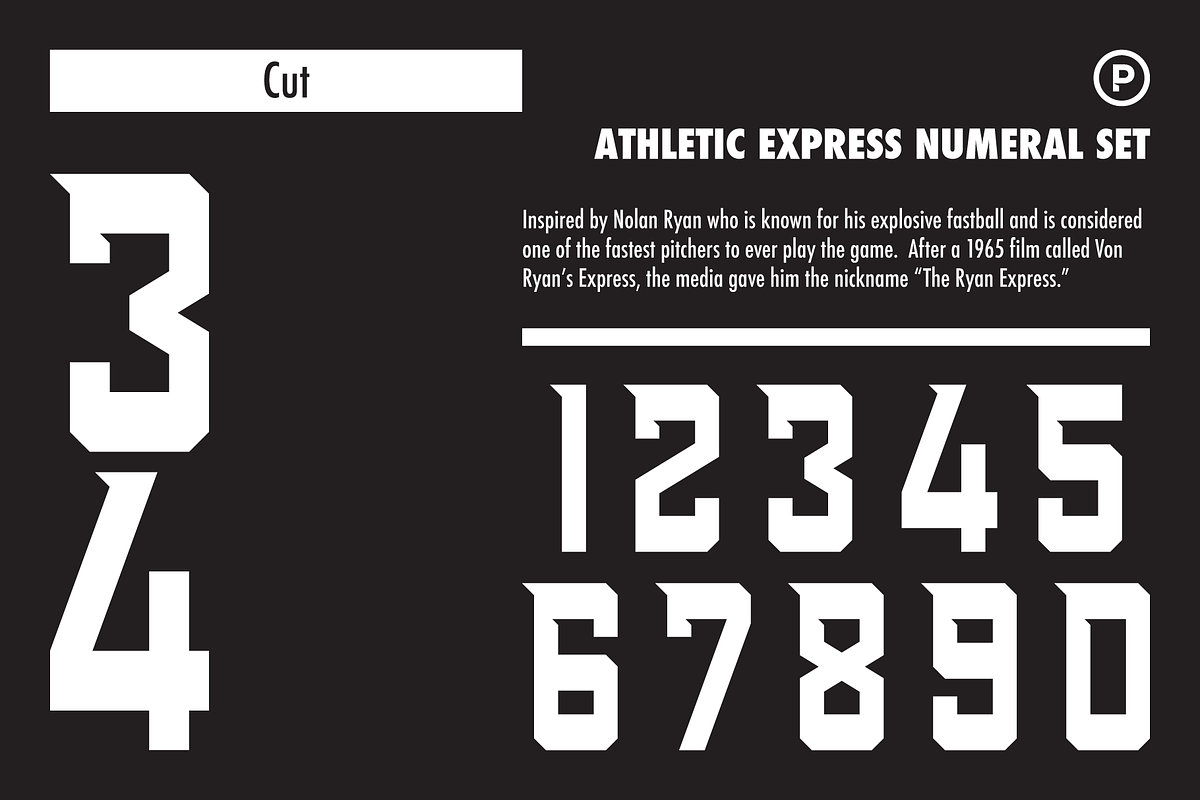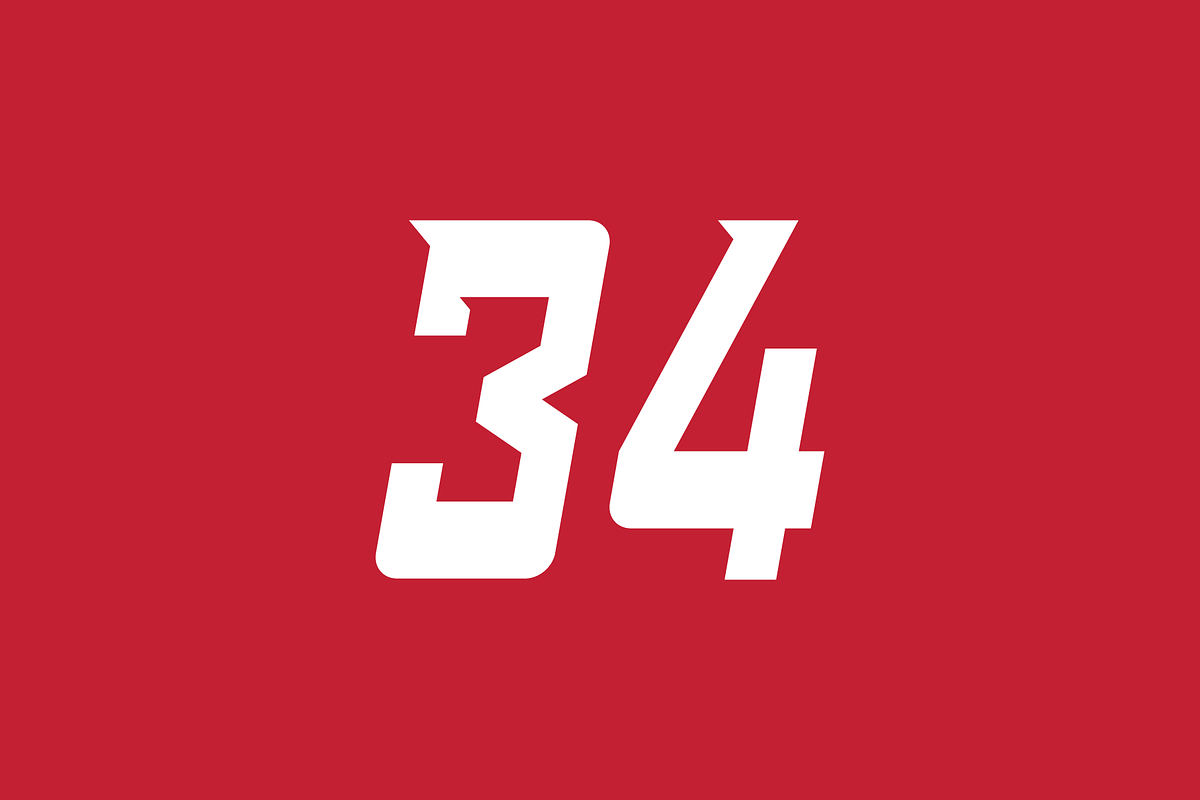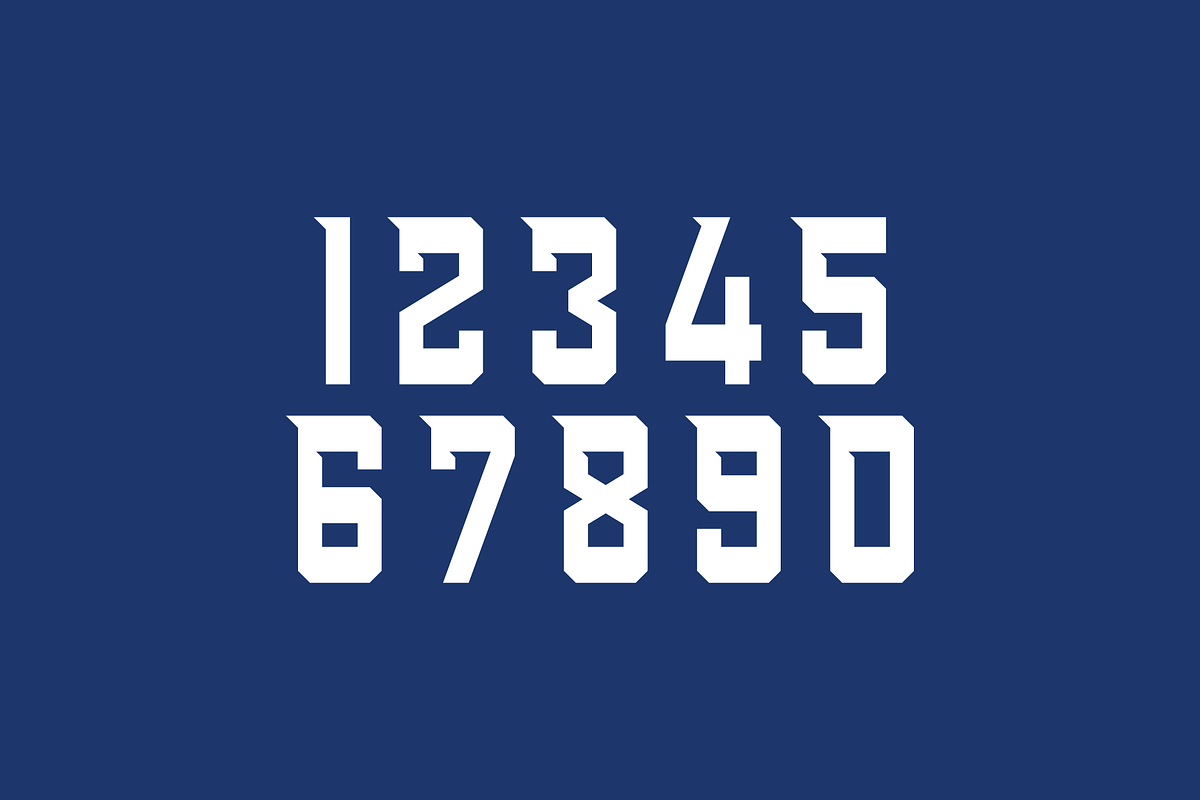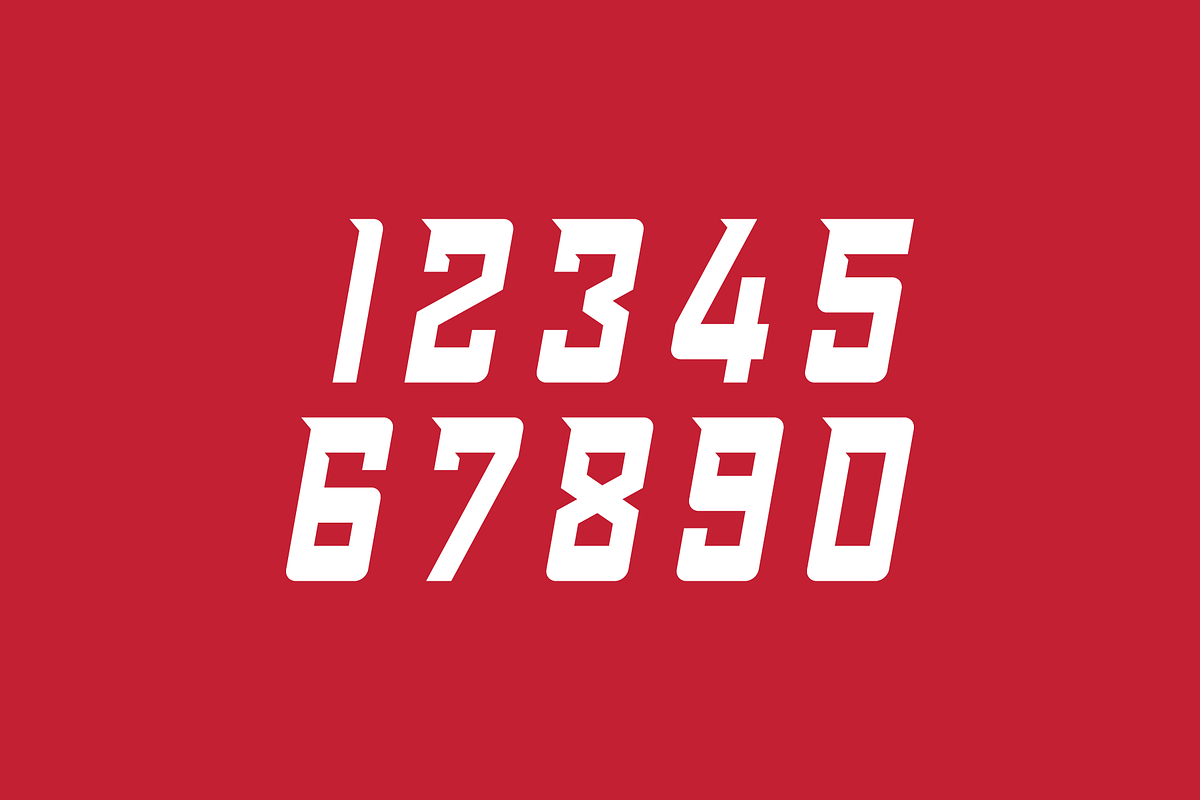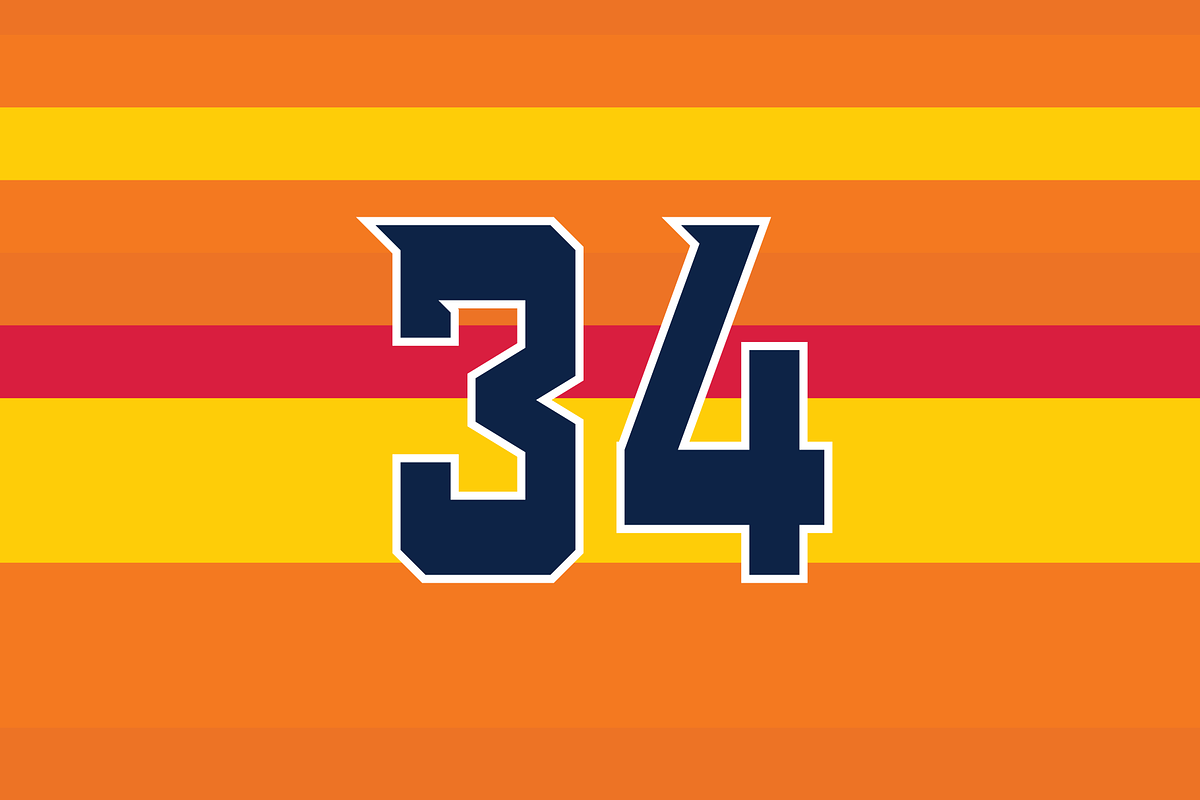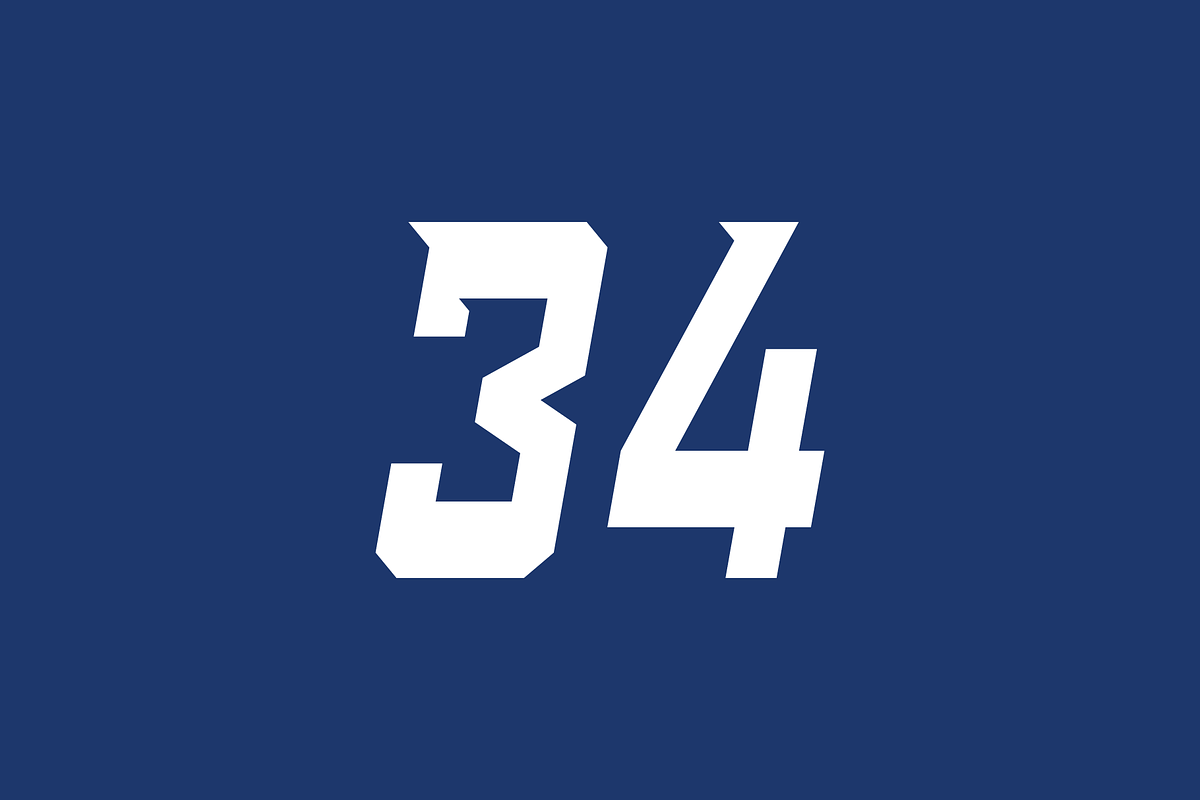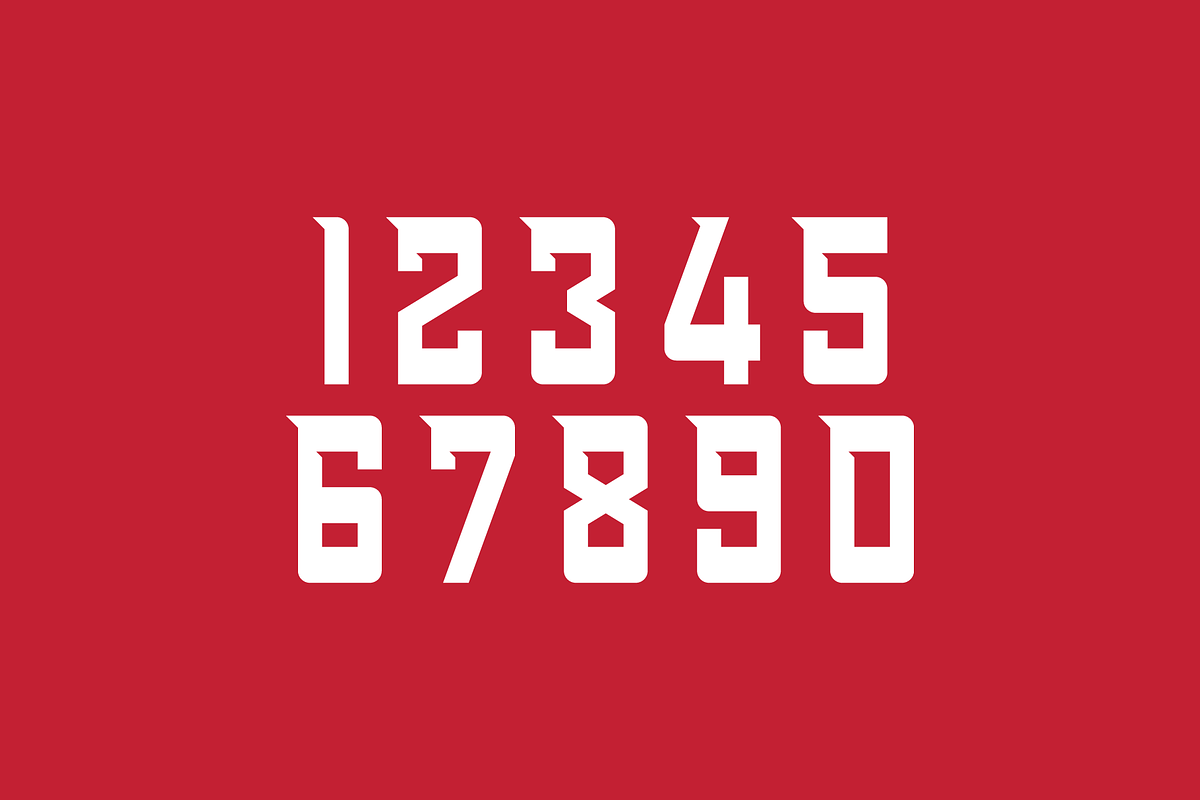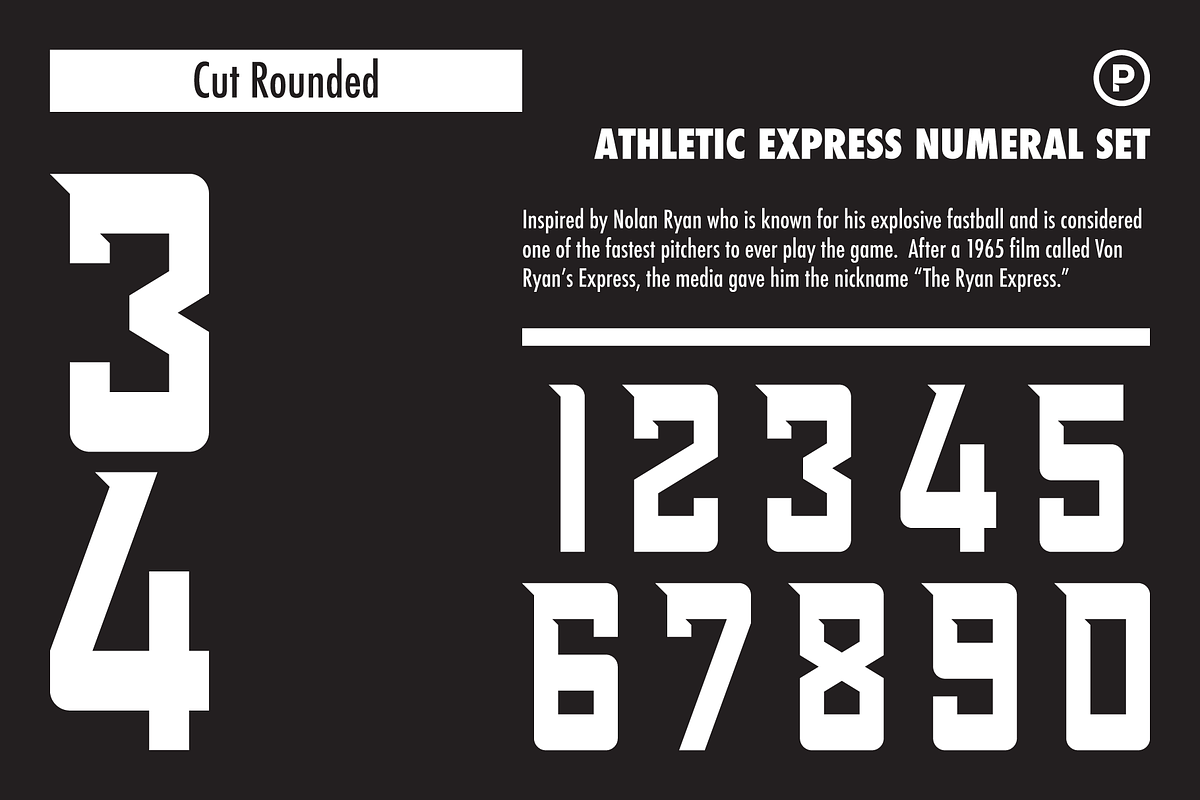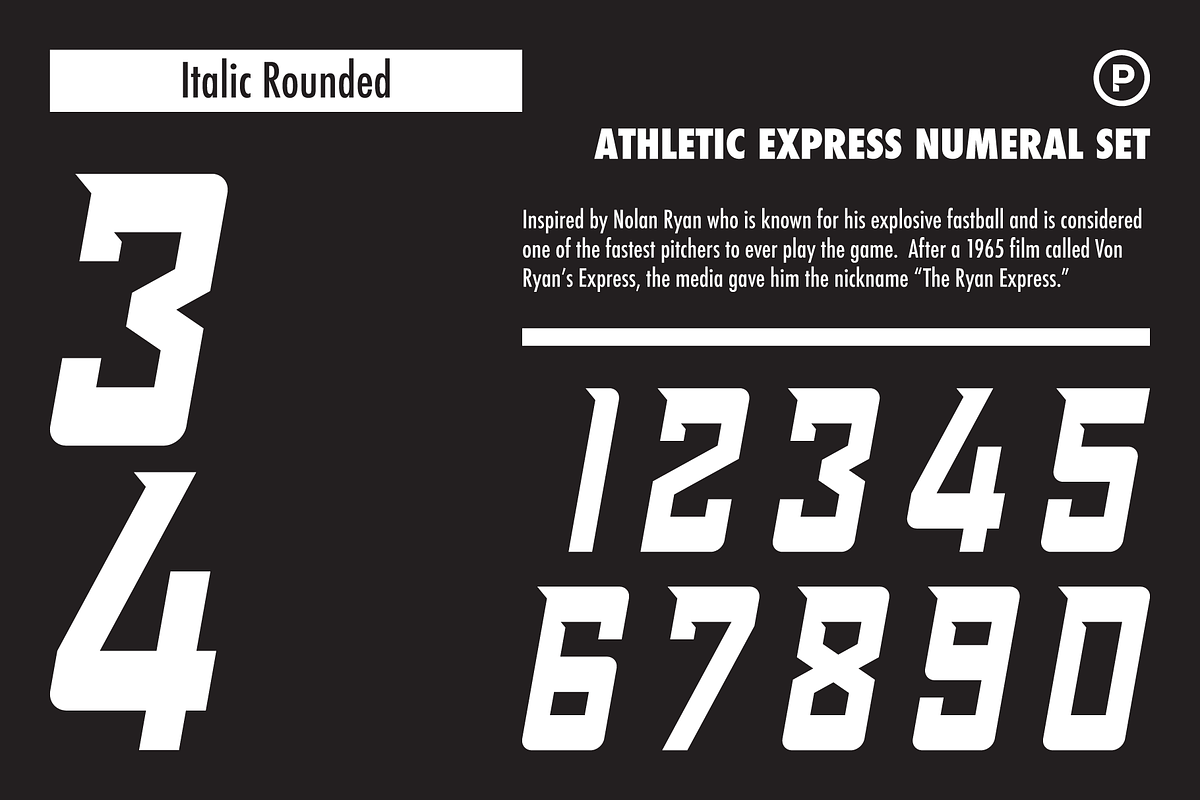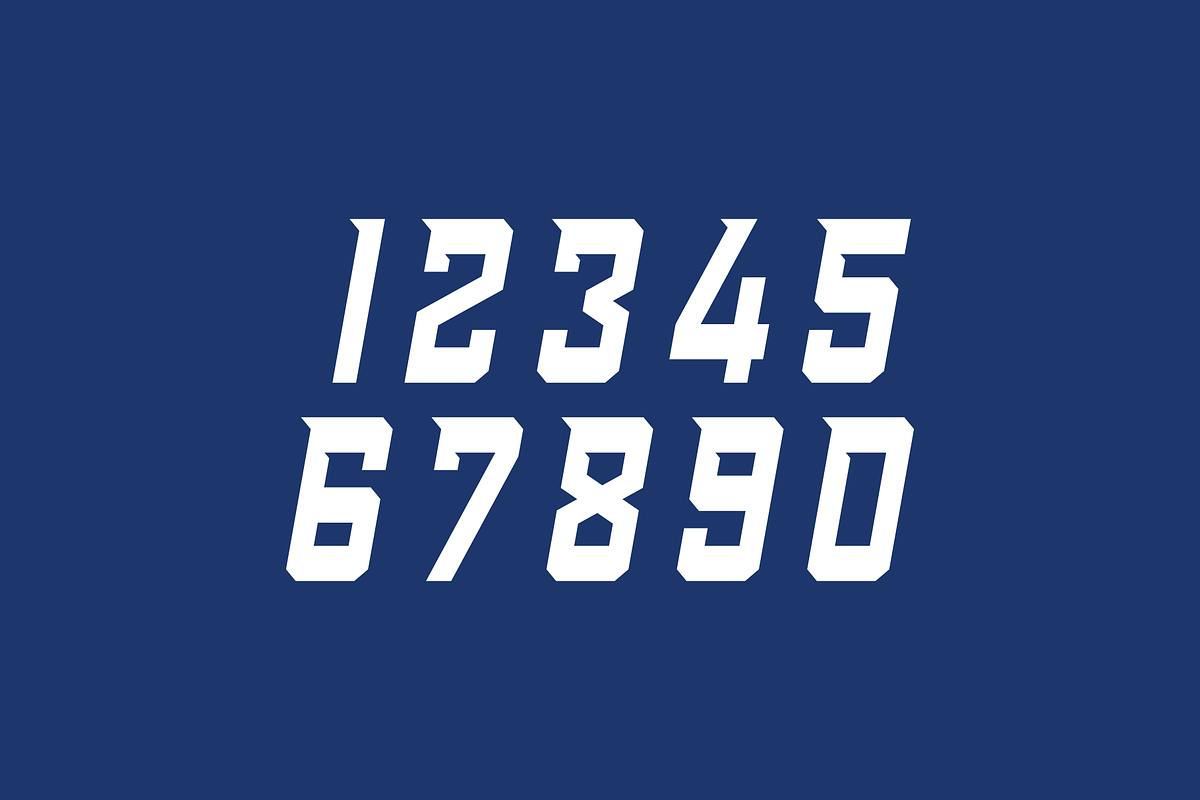
Athletic Express
Inspired by Nolan Ryan who is known for his explosive fastball and is considered one of the fastest pitchers to ever play the game. After a 1965 film called Von Ryan’s Express, the media gave him the nickname “The Ryan Express.”